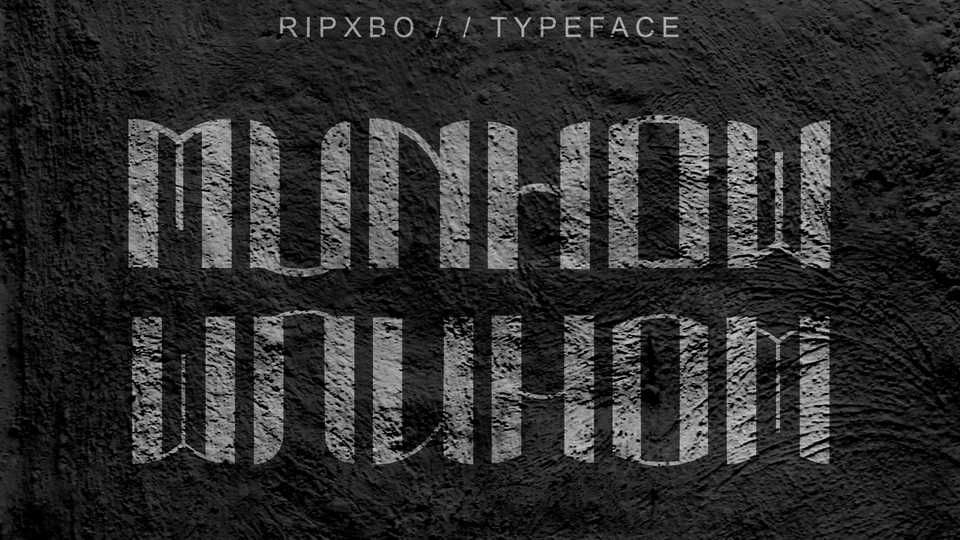
Download Munhow font, a high contrast modular display typeface. With its modern look, Munhow font works great at big sizes, for posters, album artwork ant typographic compositions.